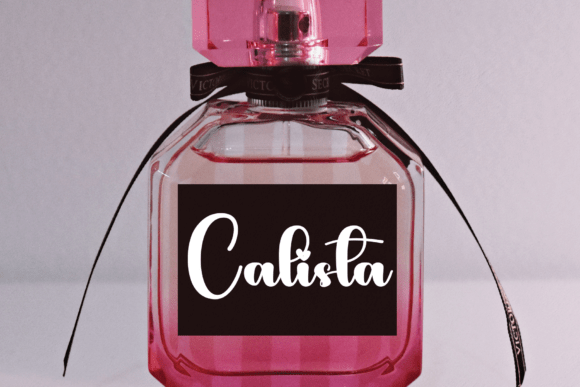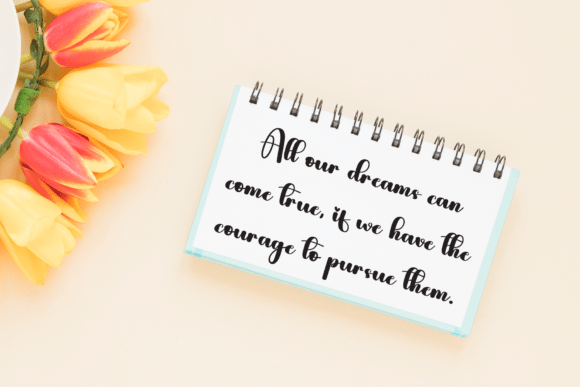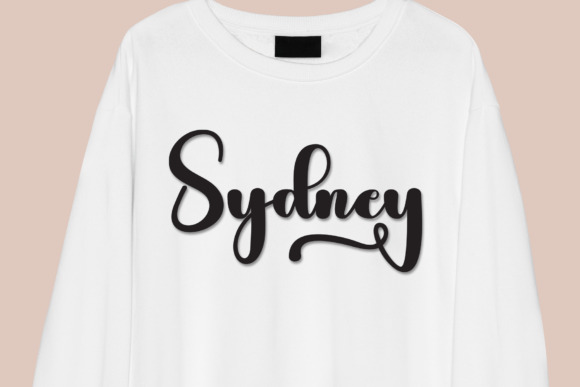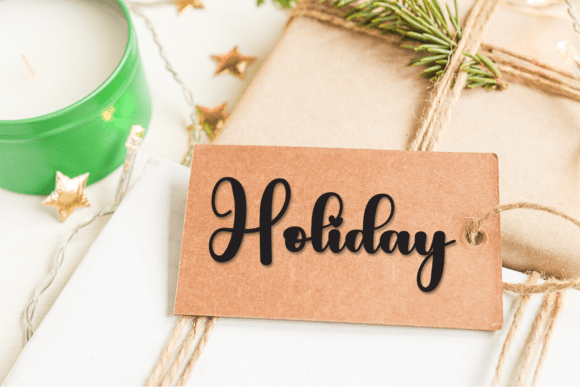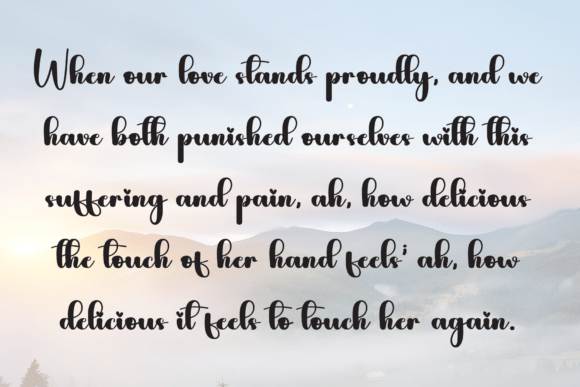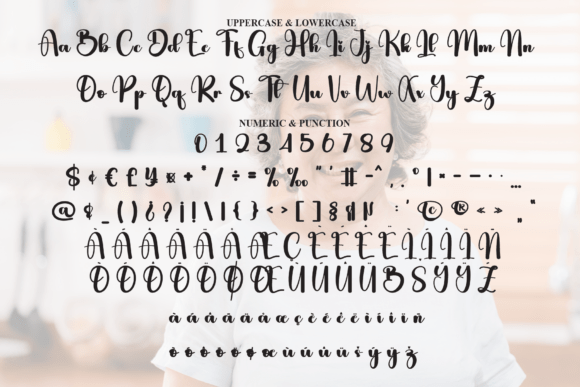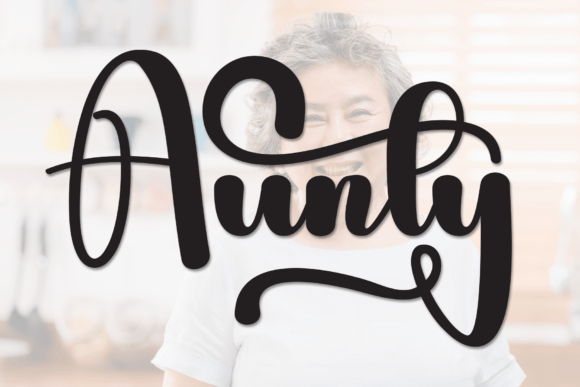
Aunty Font: Elevate Your Designs with Elegance and Playfulness
In the world of typography, fonts play a crucial role in conveying the tone and personality of a brand, product, or message. For designers and crafters seeking a unique and captivating font, Aunty Font is an excellent choice. This stylish handwritten script font embodies elegance and playfulness, making it perfect for various creative projects.
The Characteristics of Aunty Font
Aunty Font is distinguished by its flowing curves and natural rhythm, which give it a personal and charming touch. The font’s design is characterized by:
- Elegant strokes: Aunty Font features smooth, flowing strokes that exude sophistication and refinement.
- Playful flair: The font’s playful nature adds a touch of whimsy and fun to any design.
- Natural rhythm: The font’s natural rhythm creates a sense of movement and fluidity, making it perfect for dynamic and creative projects.
Uses of Aunty Font
Aunty Font is a versatile font that can be used in a variety of creative projects, including:
- Invitations: Add a personal touch to wedding invitations, birthday party invites, or any other special occasion.
- Branding: Use Aunty Font to create a unique and memorable brand identity that stands out from the crowd.
- Social media: Elevate your social media presence with Aunty Font, perfect for creating engaging captions, quotes, or graphics.
- Stationery: Add a touch of elegance to your stationery, including greeting cards, thank-you cards, or letters.
Benefits of Using Aunty Font
By incorporating Aunty Font into your designs, you can:
- Add warmth: Aunty Font’s elegant design brings a sense of warmth and approachability to any project.
- Convey sophistication: The font’s refined strokes and natural rhythm convey a sense of sophistication and elegance.
- Inspire creativity: Aunty Font’s playful nature inspires creativity and imagination, perfect for designers and crafters seeking to push boundaries.
Tips for Using Aunty Font
To get the most out of Aunty Font, consider the following tips:
- Pair with contrasting fonts: Combine Aunty Font with contrasting fonts to create visual interest and hierarchy.
- Experiment with colors: Try Aunty Font with different colors to find the perfect match for your design.
- Use for headlines and titles: Aunty Font is perfect for headlines and titles, adding a touch of elegance and sophistication.
Aunty Font is a stylish and versatile handwritten script font that captures elegance and playfulness in every stroke. With its flowing curves, natural rhythm, and charming touch, it’s perfect for designers and crafters seeking to add a personal and sophisticated touch to their creations. Whether you’re working on invitations, branding, social media, or stationery, Aunty Font is an excellent choice for elevating your designs and inspiring creativity.